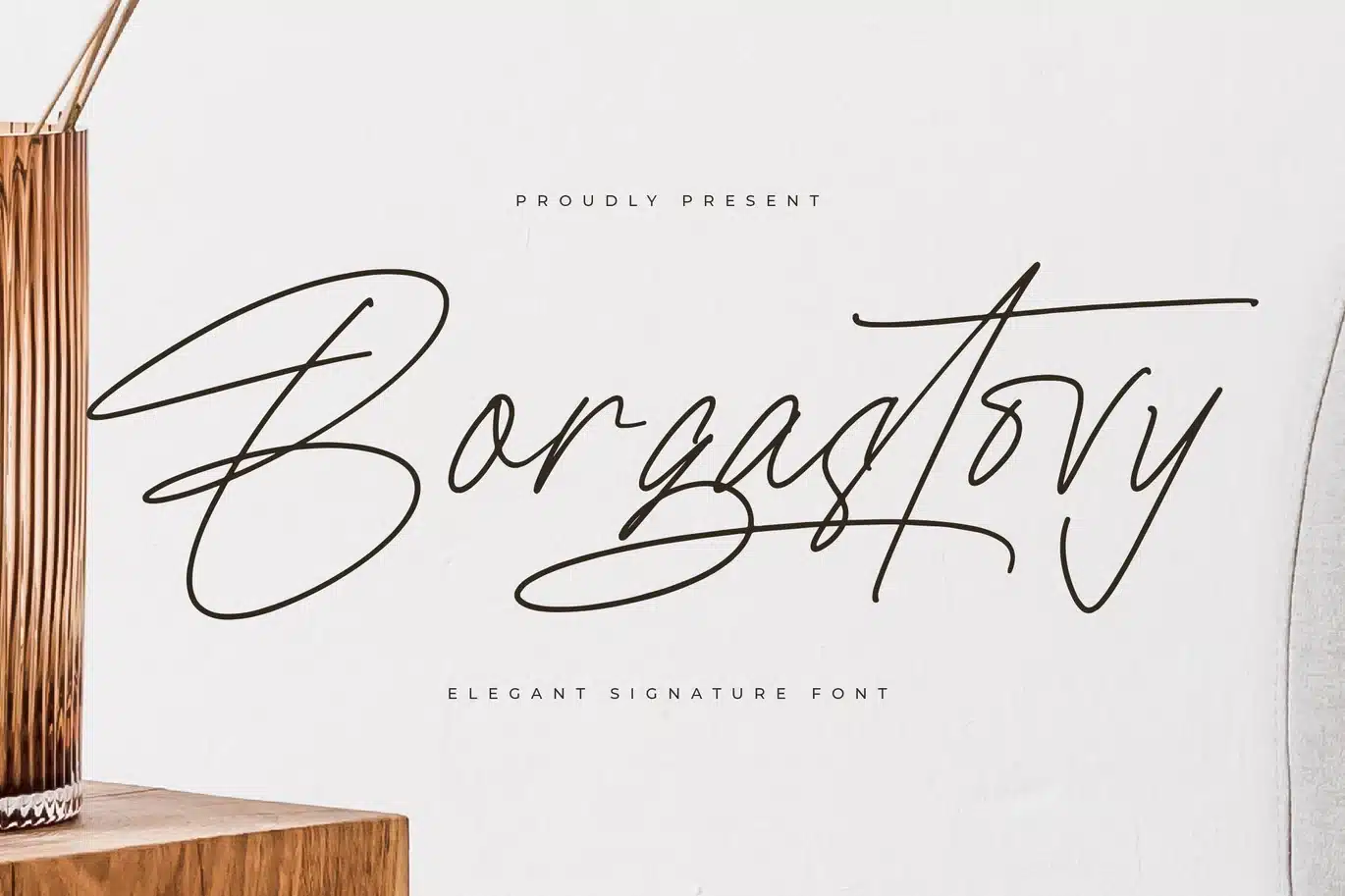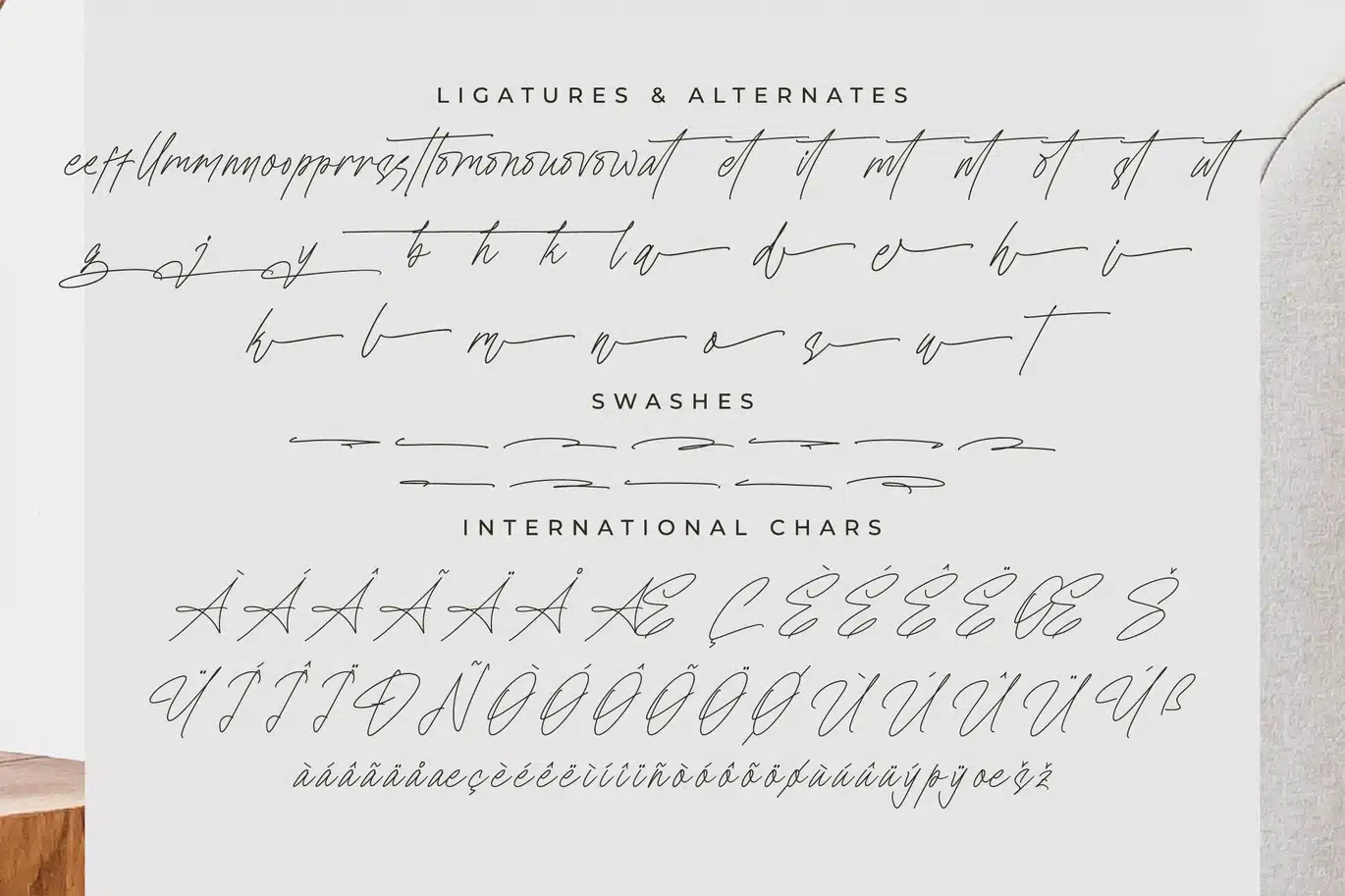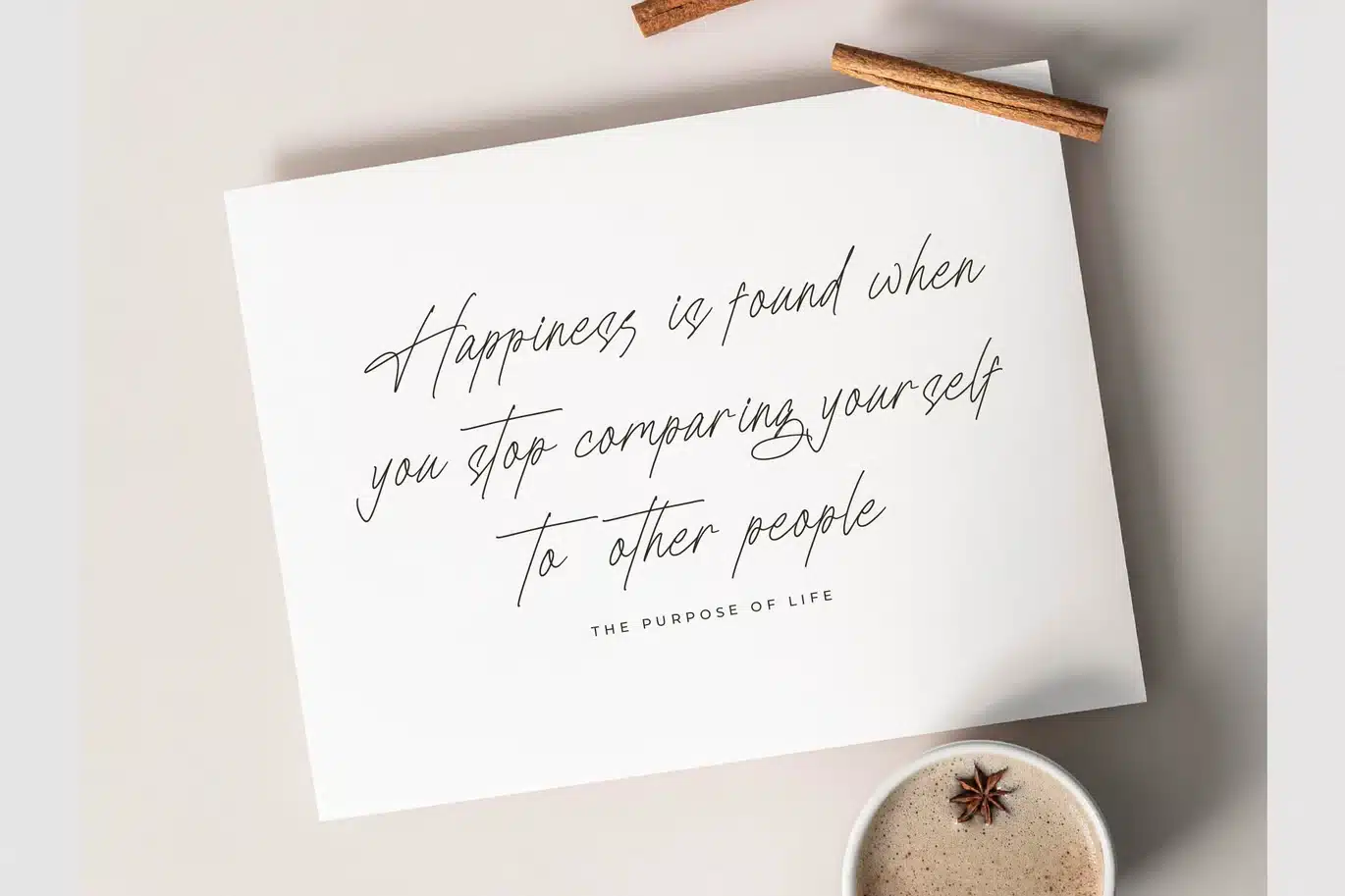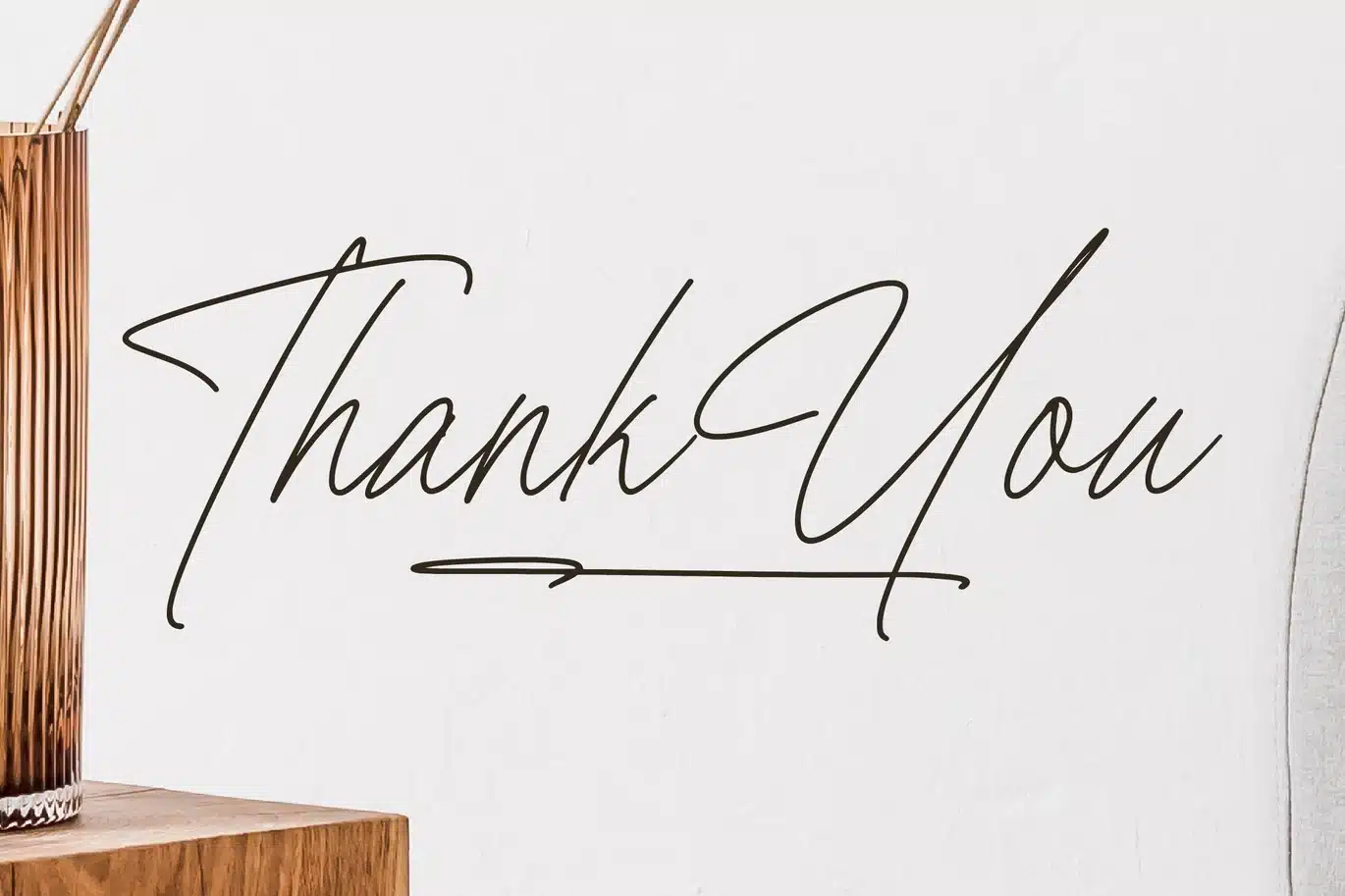
Borgastovy Elegant Signature Font
Hi ladies & gentlemen, this is one of our fonts suitable to complement your digital and printed creative products. This font is perfect for posters, social media posts, branding, personal projects, etc.